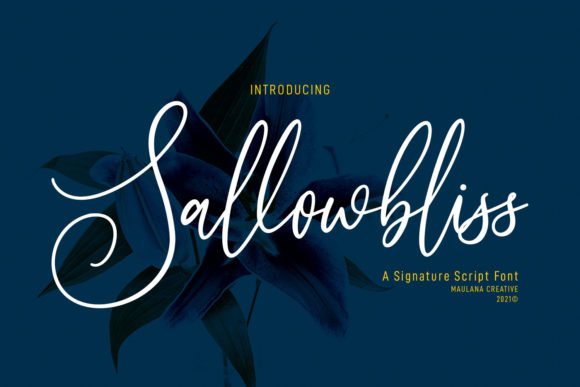
In a world clamoring for distinction, your brand's visual identity is your clarion call, your chance to stand out and ignite recognition. Sallowbliss Font, an exquisite script font, emerges as your ally in this quest for individuality. Recognized as the Best Font for Logo Design in 2017, Sallowbliss is the brainchild of Maulana Creative, a visionary design studio renowned for its impeccable craftsmanship.
Sallowbliss Font: Where Art Meets Ingenuity
This meticulously crafted font family exudes charm and elegance, reminiscent of a bygone era when artisans poured their heart and soul into their creations. Each letter, meticulously designed, possesses a unique and captivating touch, breathing life into your designs. Whether you're crafting an unforgettable logo, shaping a distinctive brand identity, or etching timeless quotes, Sallowbliss Font is your muse, your gateway to creative liberation.
Unleash Your Creative Genius:
With Sallowbliss Font as your creative companion, you'll discover a world of endless possibilities. Its inherent versatility makes it a perfect fit for a diverse range of projects, from eye-catching logos that demand attention to branding materials that exude professionalism and sophistication. Capture the essence of your brand through captivating quotes, rendered in the graceful strokes of Sallowbliss Font, and watch as your words resonate with your audience, leaving an enduring impression.
Evocative, Enchanting, Unforgettable:
Sallowbliss Font transcends the mundane, captivating your audience with its emotional depth. Its graceful curves and delicate flourishes evoke a sense of nostalgia, a longing for a simpler time when beauty was found in the details. Harness the power of Sallowbliss Font to craft designs that resonate with your audience on a profound level, creating an emotional connection that lingers long after the initial encounter.
Embrace Sallowbliss Font, Embrace Distinction:
In a digital landscape saturated with sameness, Sallowbliss Font emerges as a beacon of originality, a testament to the transformative power of exceptional design. It's more than just a font; it's a key that unlocks your creative potential, empowering you to forge a brand identity that captivates and inspires. Embrace Sallowbliss Font and embark on a journey of creative exploration, leaving behind a trail of unforgettable designs that speak volumes about your brand's essence. Let Sallowbliss Font be your artistic partner, your secret weapon in the pursuit of distinction.